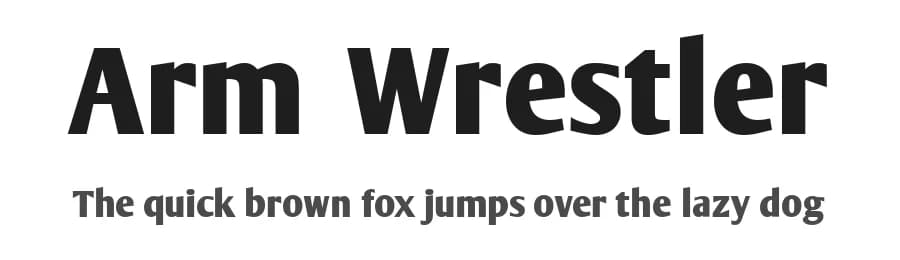
About Arm Wrestler Font
Arm Wrestler is a sans-serif font designed by AJ Paglia. It includes 197 glyphs, a bold weight, TTF (TrueType) format, and 210 languages. Arm Wrestler is free to download; check the license details on this page before commercial use. Sans-serif fonts like Arm Wrestler work best for clean body text, user interfaces, branding, and modern layouts.
Arm Wrestler Font is a versatile sans-serif font that works for both headings and body text. Pair it with a contrasting serif or slab serif font to add visual interest and a clear distinction between titles and body copy.
Arm Wrestler Font
Arm Wrestler Font is a sans serif typeface by AJ Paglia, ideal for logos, invitations, branding, and creative projects.